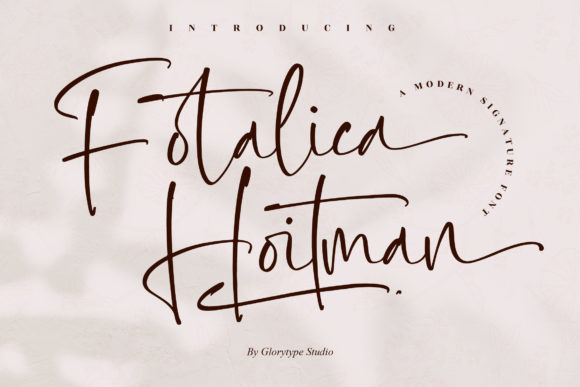
Journey into the world of enchanting calligraphy with Fotalica Hoitman, a script font crafted with the utmost elegance and charm. Step into a realm where letters dance with grace, intertwining in a symphony of flowing lines and captivating curves. Inspired by the timeless beauty of handwritten masterpieces, Fotalica Hoitman is not just a font; it's an invitation to express your creativity with a touch of artistic flair.
As you embark on your design journey with Fotalica Hoitman, prepare to be amazed by its versatility. From delicate logos that exude sophistication to branding projects that radiate personality, this font adapts seamlessly to your creative vision. Create stunning labels that elevate your products with a touch of elegance, or let your photographs come alive with an overlay of Fotalica Hoitman's graceful strokes.
Dive into a world of endless possibilities with Fotalica Hoitman. Its PUA encoding grants you effortless access to a treasure trove of glyphs and swashes, empowering you to unleash your imagination and add intricate details to your designs. Personalize your designs with ease, adding a touch of whimsy to invitations, or let your wedding stationery exude romance with Fotalica Hoitman's enchanting characters.
Indulge in the exquisite taste of Fotalica Hoitman, a font designed to make your creative dreams a reality. Its harmonious blend of elegance and charm will transform your designs into masterpieces that captivate and inspire. Embrace the beauty of handwritten grace and allow your creations to bloom with the timeless allure of Fotalica Hoitman.